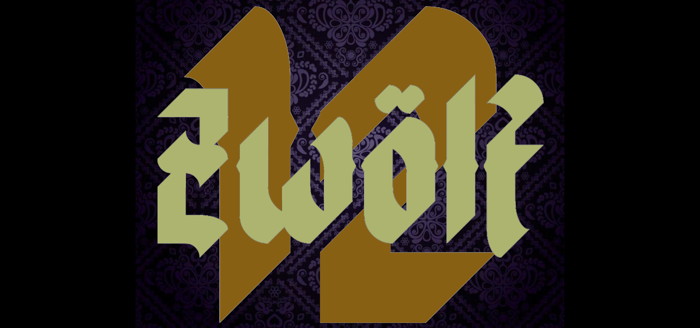
A little variation of zoulsister.
Beautiful. It has the natural feel of brush strokes. 10/10
Like a very controlled calligrapher. Awesome.
Beautiful strokes, love it! 10/10
Elegant and smooth. Very clever work. A hidden gem. You should add some tags otherwise it'll be difficult to find. Why didn't this get a top pick?
Congratulations! FontStruct Staff have deemed your FontStruction worthy of special mention. “zoulsister plus eYe/FS” is now a Top Pick.
@SymbioticDesign: Thanks. It was an intent to create one "natural" calligraphic feel in FS.
You have that here.  I'm working on a blackletter font with the same general idea, at least, to make it look like it was hand lettered, or it could have been.  But I start and then realize it looks like sticks, so I have to beef it up.